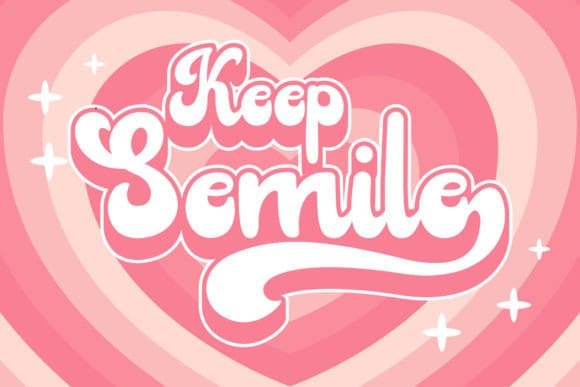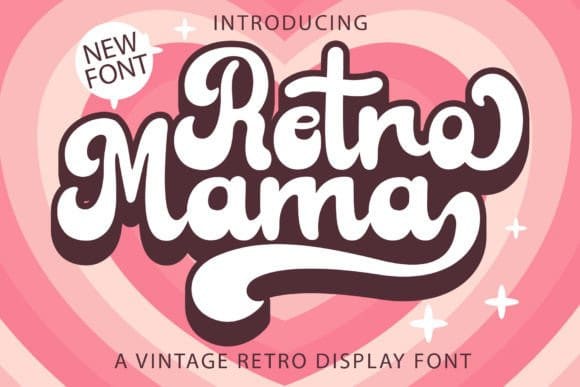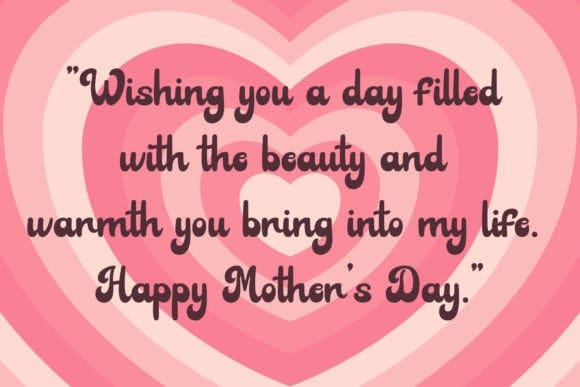
Retro Mama Font
Retro Mama Font is a cool, vintage-style display font. Use it to add that special retro touch to any design idea! It can be used for logos, branding, invitations, stationery, wedding designs, social media posts, and much more!